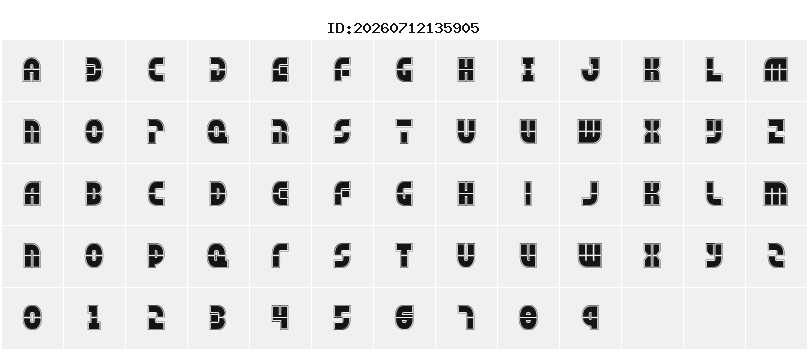
Rebel Command Academy Preview
• Font Name: Rebel Command Academy
• Full Font Name: Rebel Command Academy Regular
About Rebel Command Academy.ttf
Rebel Command Academy.ttf is a modern, elegant sans-serif font designed for ultimate readability and visual harmony. Perfect for branding, headlines, web design, and print materials.